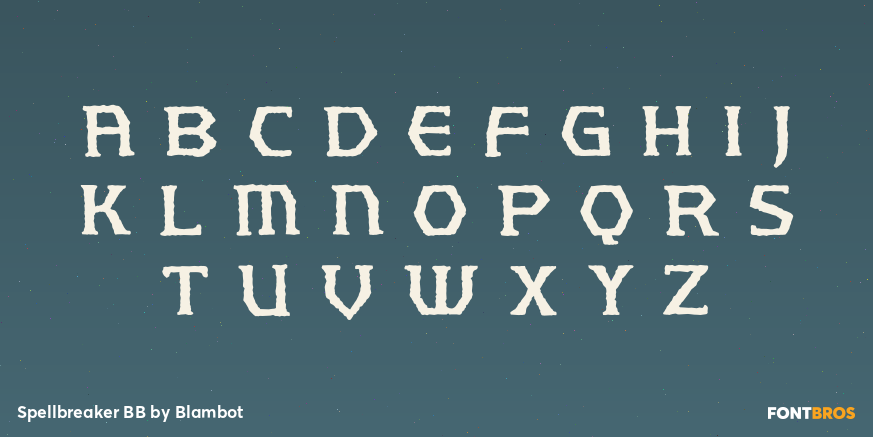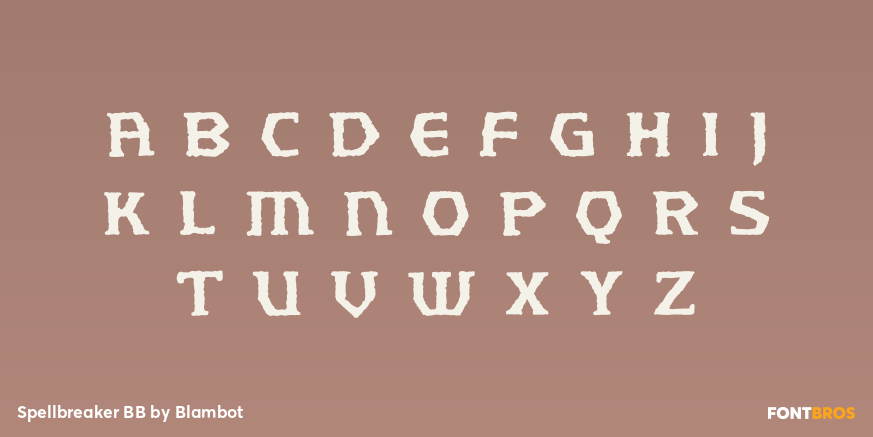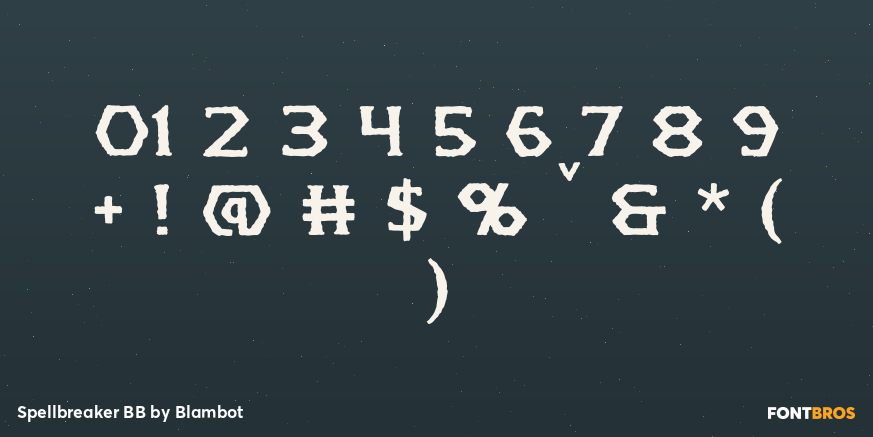
Spellbreaker BB
Font Family by Blambot
SPELLBREAKER BB is a distressed fantasy font in two styles, Regular and Deco. Open your spell book, grab your Staff of Firebolts, and get ready to face those pesky dragons!